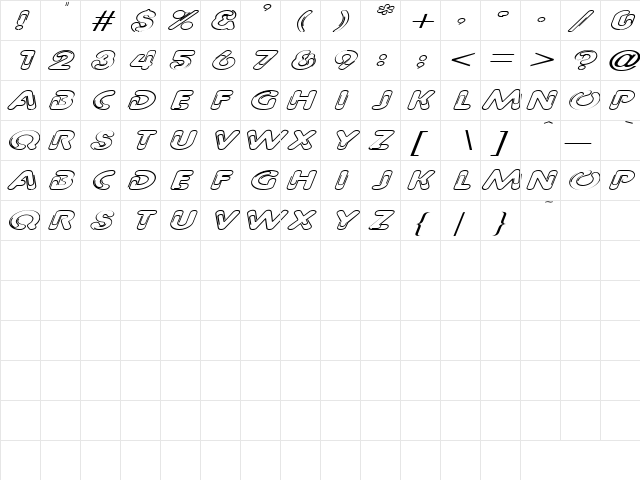
Snow-blind 3 Italic
Design Context for Snow-blind 3 Typeface
Snow-blind 3 is a composed and adaptable typeface that performs quietly and consistently across a wide range of design contexts. The dynamic lean of this cut emphasises speed and emphasis in any layout.
Pro Tip: Try Snow-blind 3 for annotation and caption copy alongside an upright companion — the contrast in angle creates a dynamic but ordered typographic system.